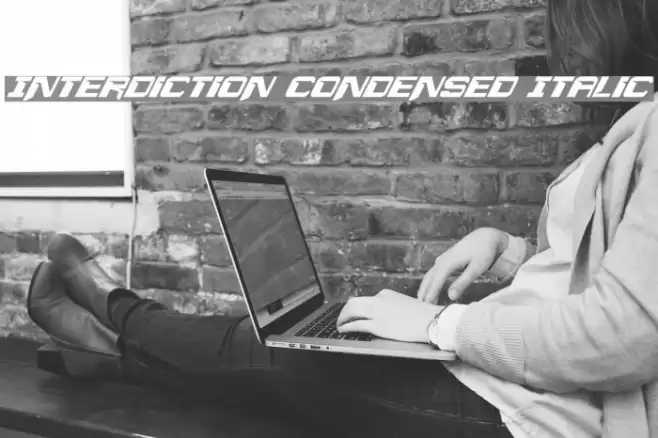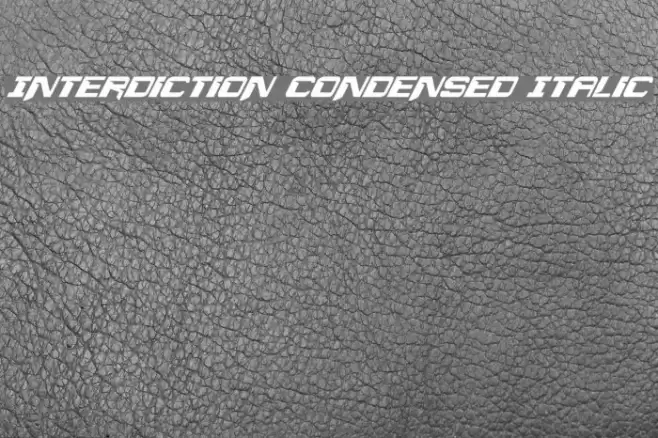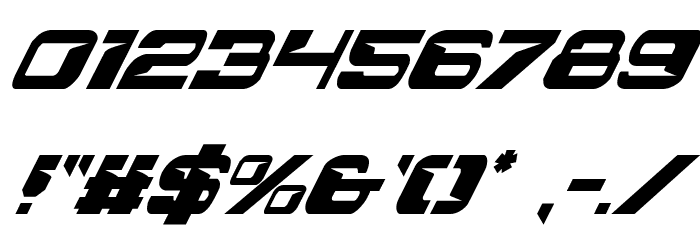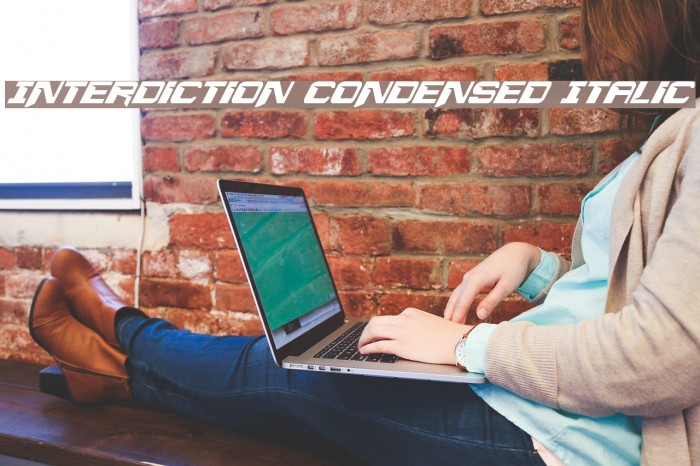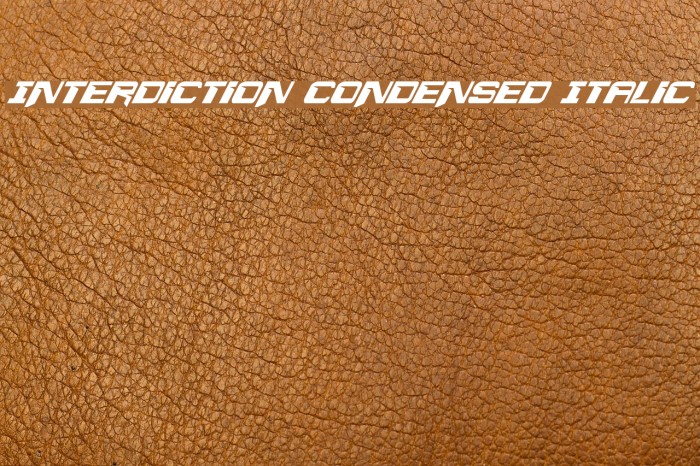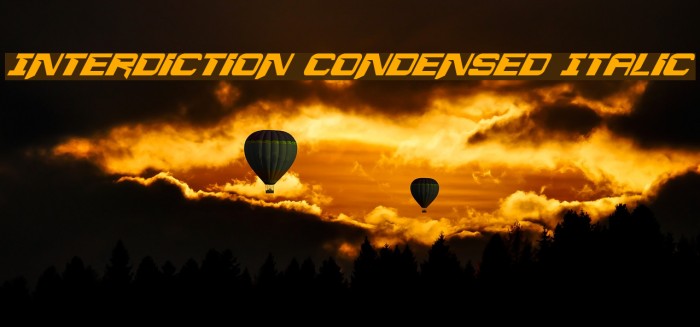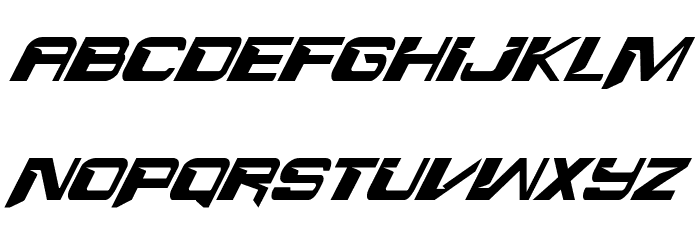
Interdiction Condensed Italic Font
Interdiction Condensed Italic Description
This font features a bold, italicized style with a condensed width, giving it a dynamic and modern appearance. The characters are sharply angled, creating a sense of motion and speed. The uppercase and lowercase letters maintain a consistent slant, enhancing the italic effect. The numbers and special characters follow the same stylistic approach, ensuring uniformity across all glyphs. The overall design is sleek and futuristic, making it suitable for projects that require a strong visual impact.
A bold, italicized, and condensed font with a modern, dynamic style from Uncategorized fonts.
- Proposed Projects: Ideal for sports branding, automotive logos, video game titles, and dynamic advertising campaigns.
- Character Spacing: Tight